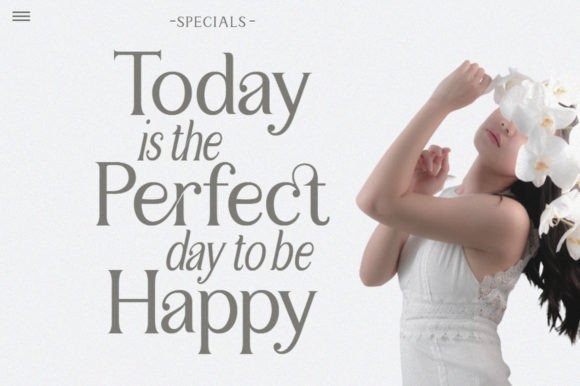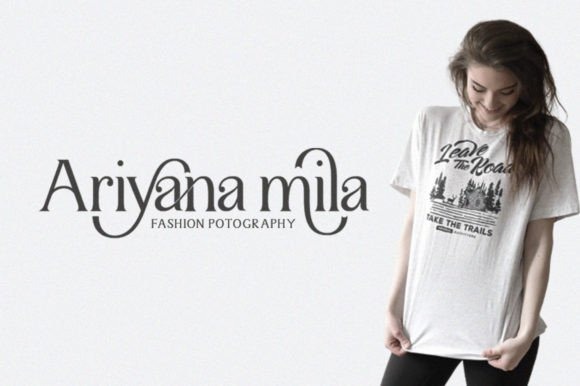
Sulangor Font Family
Sulangor Serif Font
It’s a elegant and classy serif typeface created by Mantype Studio with letters that seem to dance and twist harmoniously together to form unique and elegant typography designs. Add it confidently to your projects and you will love the results!